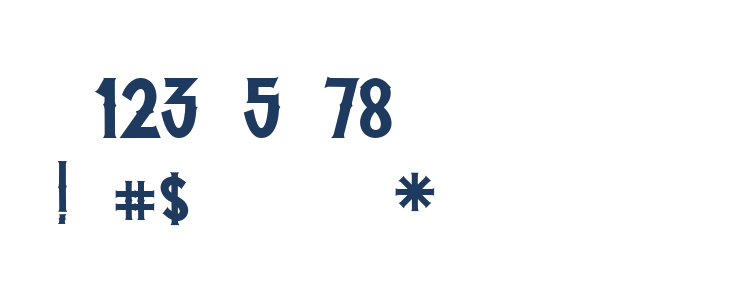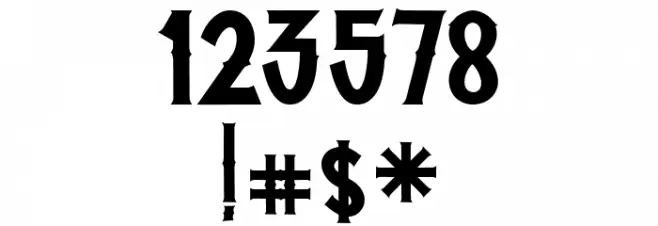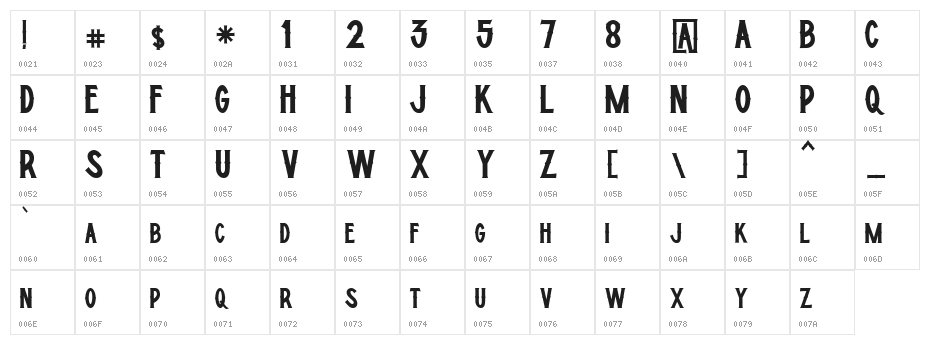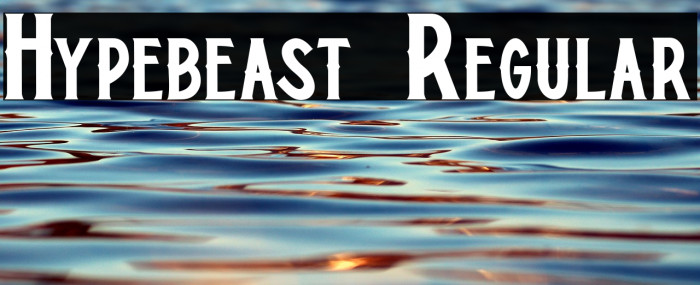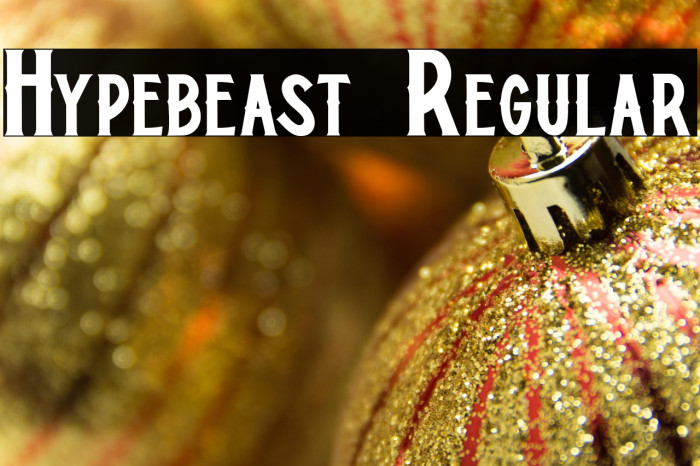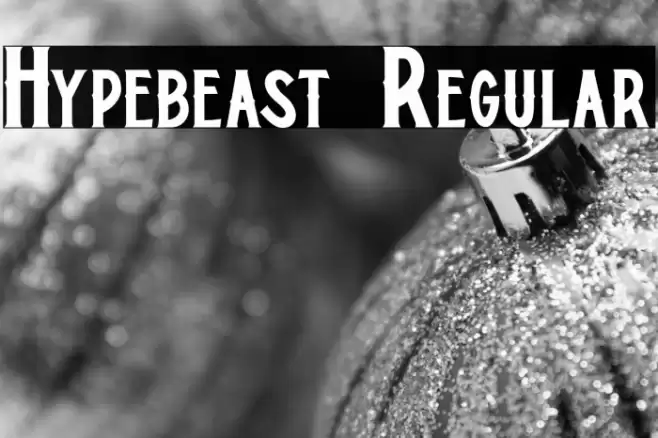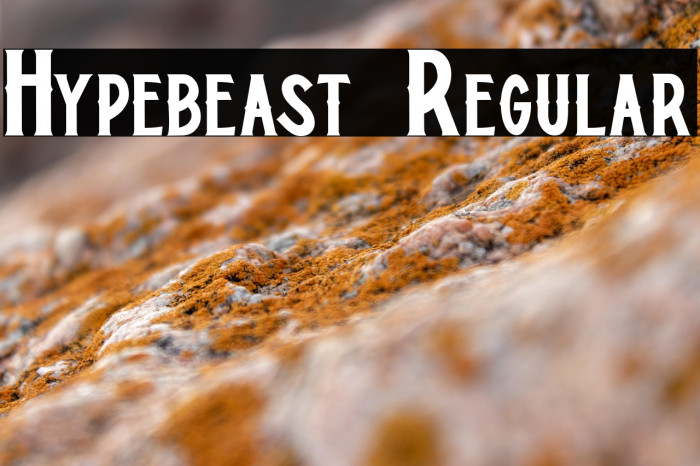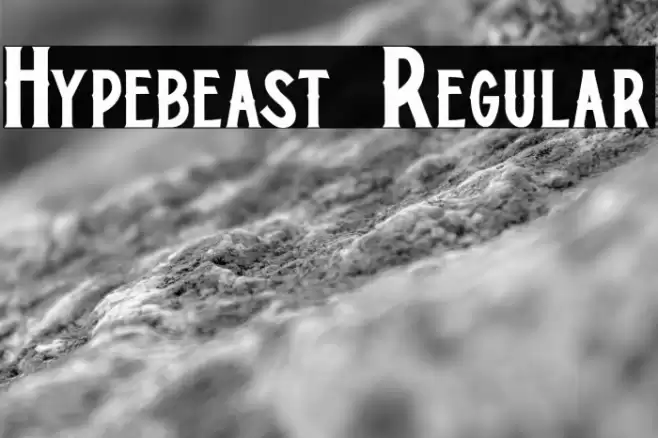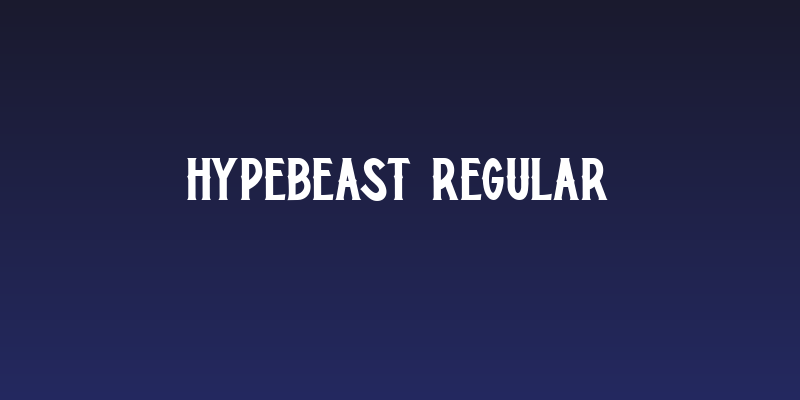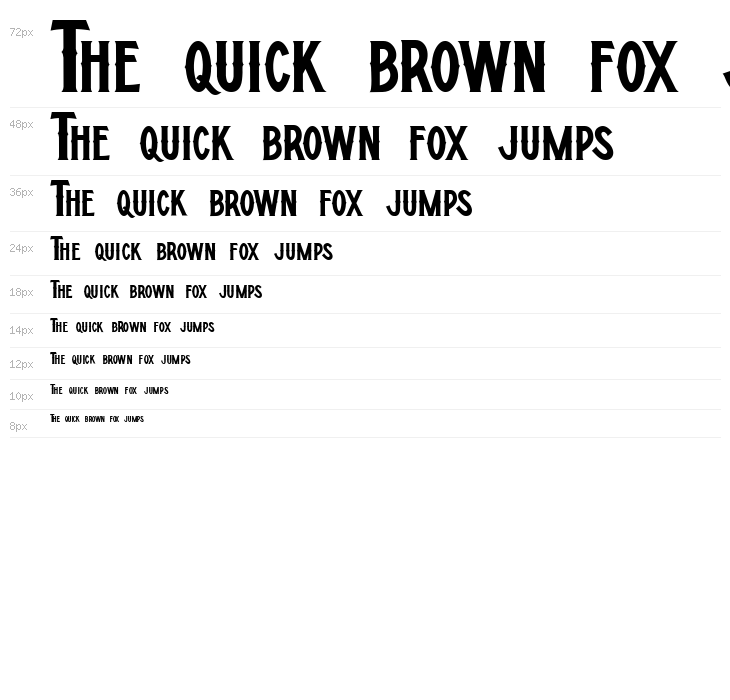
Hypebeast Regular Font
Hypebeast Regular Description
This font features a bold and dynamic style with a strong presence. The characters are designed with sharp, angular edges and a slightly condensed form, giving it a distinctive and modern look. The uppercase letters are particularly striking, with a sense of movement and energy. The numbers and special characters maintain the same boldness, ensuring consistency across all elements. This font is ideal for making a statement, with its high contrast and unique design elements that draw attention.